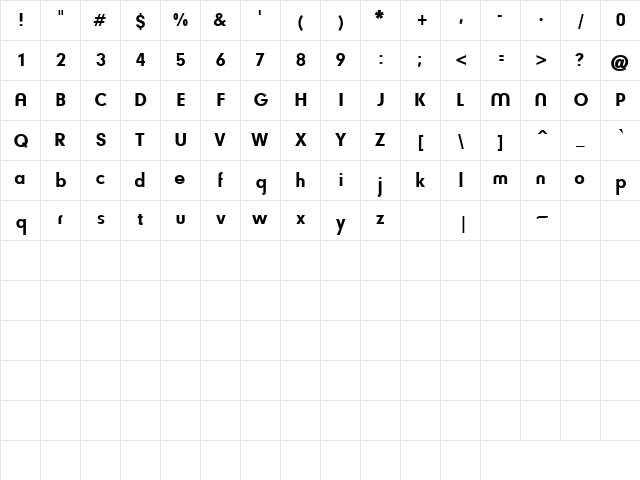
Soul Papa Regular
Design Context for Soul Papa Typeface
Soul Papa is a composed and adaptable typeface that performs quietly and consistently across a wide range of design contexts.